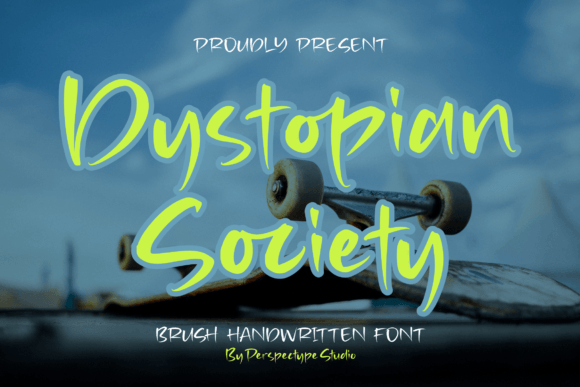
Unleash the Beauty of a Dystopian Future
Introducing the Dystopian Society Font, a stunning Brush Handwritten Font designed to transport your projects to a world of dystopian sophistication. With its unique blend of modern and vintage flair, this font is perfect for any project that demands a touch of elegance and sophistication. Whether you’re creating logos, branding projects, or homeware designs, the Dystopian Society Font is a valuable addition to any designer’s toolkit.
With its versatility and timeless charm, the Dystopian Society Font is sure to become your go-to choice for all your creative projects. So why wait? Dive into the world of dystopian design and discover the endless possibilities that this incredible font has to offer.
Dystopian Society Font Key Features
- Font Family: DSF Dystopia (with 12 styles: Thin, Light, Regular, Medium, Bold, Heavy, Black, Italic, Oblique, Bold Italic, Black Italic, and Black Oblique)
- Unique Characteristics:
- Distressed and worn texture, giving a post-apocalyptic feel
- Unique letterforms and shapes, inspired by urban decay and industrialization
- Extensive language support, including Latin, Cyrillic, Greek, and more
Dystopian Society Font Review
I’ve had the chance to work with the “Dystopian Society Font” and I must say, it’s a unique addition to any design project. Here’s what I think:
- ✨ The font’s distressed, gritty aesthetic is perfect for creating a post-apocalyptic atmosphere.
- ✨ The bold lines and rough textures add depth and visual interest to any design.
- ✨ The font is highly customizable, making it easy to adjust the look and feel to suit your project’s needs.
- ⚠️ The font may be too overwhelming for more subtle designs or projects where a clean, minimalist look is preferred.
- ⚠️ Some of the characters may be difficult to read at smaller font sizes due to the bold lines and rough textures.
- ⚠️ The font may not be suitable for projects requiring a high level of professionalism or formal tone.
The “Dystopian Society Font” is a solid choice for designers looking to create a gritty, dystopian atmosphere in their projects. While it may not be suitable for every project, it’s a great option for those looking to add some edge and visual interest to their designs.
The Dystopian Society font is perfect for:
- Creating a futuristic or dystopian theme.
- Designing science fiction or horror-themed materials.
- Adding a gritty or industrial feel to your design.
To get the most out of the Dystopian Society font, try:
- Pairing it with bold, industrial-inspired graphics.
- Using it in conjunction with distressed textures or effects.